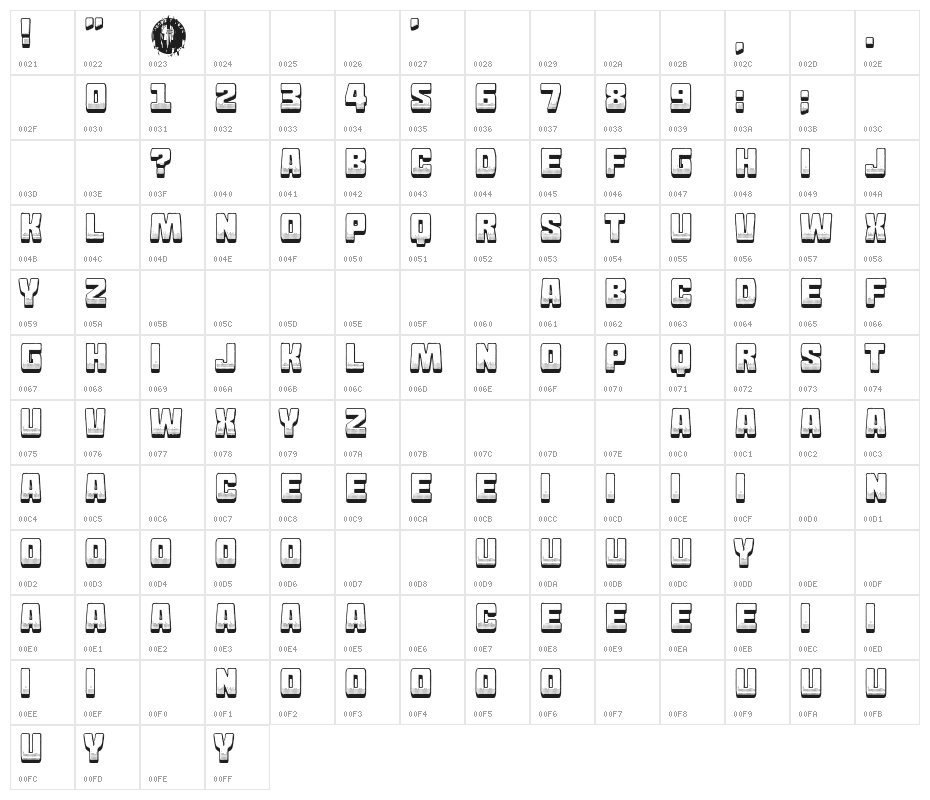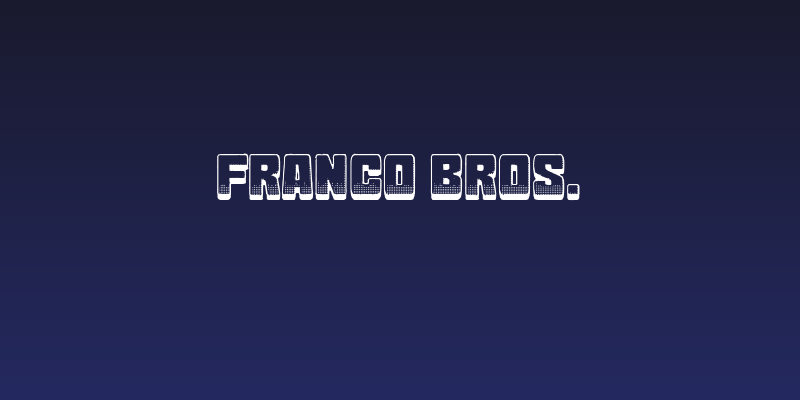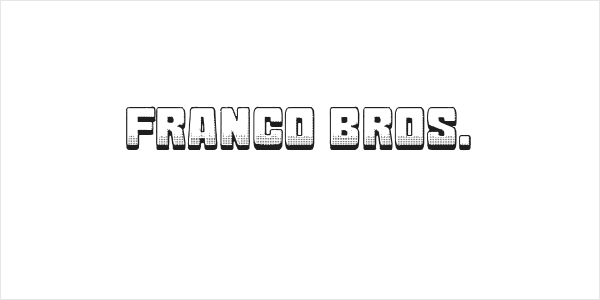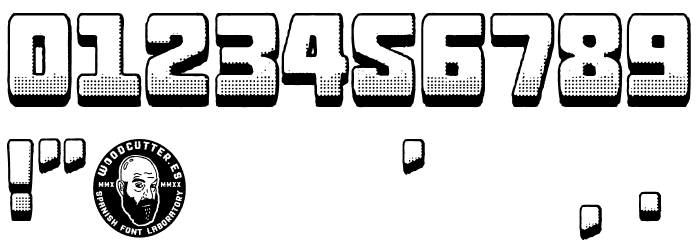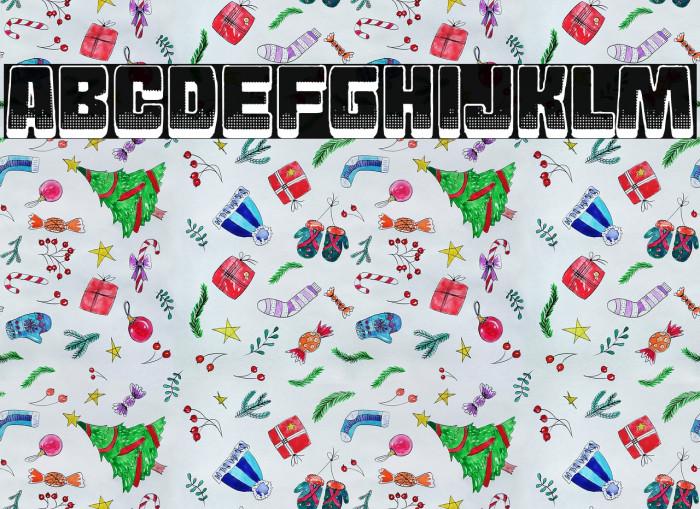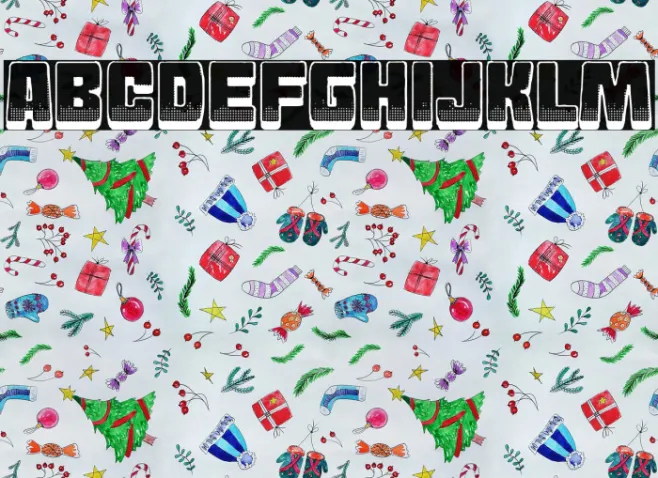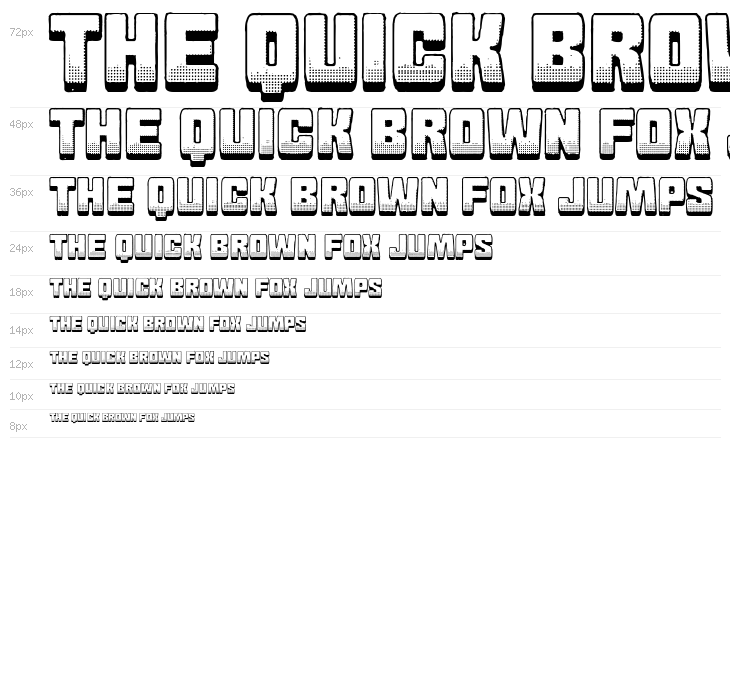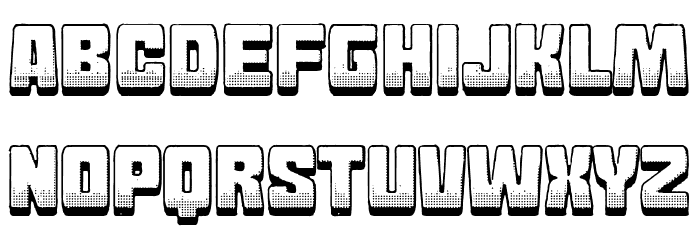
Franco Bros. Font
Franco Bros. Description
This font features a bold, three-dimensional style with a distinct halftone pattern that gives it a retro, comic book feel. The uppercase letters are robust and blocky, with a shadow effect that enhances their depth. The numbers and special characters follow the same design, maintaining consistency across the character set. The font's playful yet strong appearance makes it ideal for attention-grabbing designs. Its unique texture and shading add a layer of visual interest, making it stand out in any project.
| Overall Style | Retro, Comic |
| Use Case | Headlines, Posters, Logos |
| Proposed Projects | Perfect for comic book covers, retro-themed posters, video game graphics, and eye-catching headlines. |